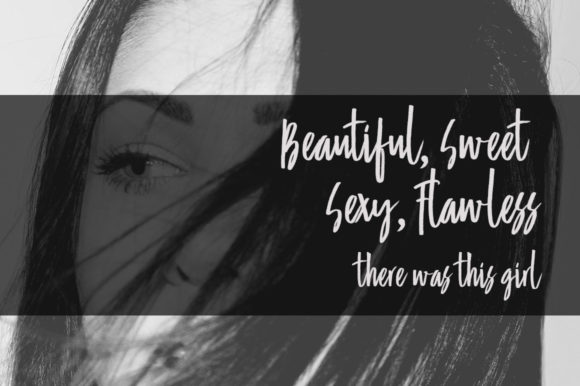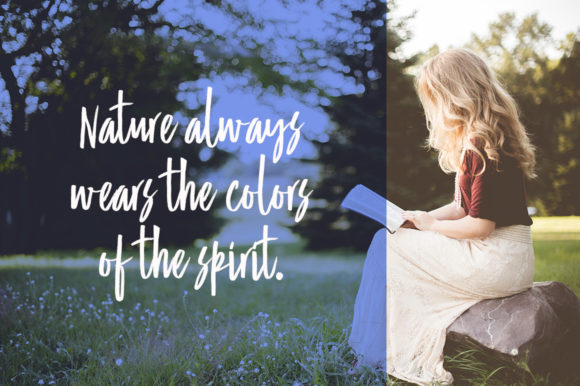
Bettol Duo Font: Elevate Your Designs with a Striking Font Pair
The Bettol is a striking font duo that has been making waves in the design community. With its natural writing style and exceptional readability, this font pair is perfect for making any design stand out. Whether you’re a designer, crafter, or DIY enthusiast, the Bettol Duo Font is an excellent addition to your typography arsenal.
What Makes Bettol Duo Font Special?
The Bettol Duo Font is a carefully crafted font pair that exudes a sense of elegance and sophistication. Its unique blend of modern and classic elements makes it versatile enough to be used in a wide range of design projects, from branding and advertising to crafting and DIY tutorials.
One of the standout features of the Bettol Duo Font is its natural writing style. The font’s curves and lines are fluid and organic, giving it a human touch that’s hard to replicate with more traditional fonts. This makes it perfect for designs that require a personal and approachable feel, such as handmade crafts, blog posts, and social media graphics.
Exceptional Readability
Readability is a crucial aspect of any font, and the Bettol Duo Font delivers in spades. The font’s clear and concise lines make it easy to read, even at smaller sizes. This is especially important for designers and crafters who need to include detailed instructions or text in their designs.
Whether you’re creating a tutorial, a recipe, or a set of instructions, the Bettol Duo Font ensures that your text is easy to read and understand. This is particularly useful for crafters who create DIY tutorials or bloggers who write in-depth articles.
The Bettol Duo Font is a dream come true for designers and crafters. Its versatility and elegance make it perfect for a wide range of design projects, from:
- Branding and advertising materials, such as logos, brochures, and business cards
- DIY tutorials and crafting instructions
- Packaging and labeling
- Stationery and invitations
The Bettol Duo Font is a striking font pair that’s perfect for designers and crafters looking to elevate their designs. With its natural writing style and exceptional readability, this font duo is versatile enough to be used in a wide range of design projects. Whether you’re creating branding materials, DIY tutorials, or social media graphics, the Bettol Duo Font is an excellent choice.